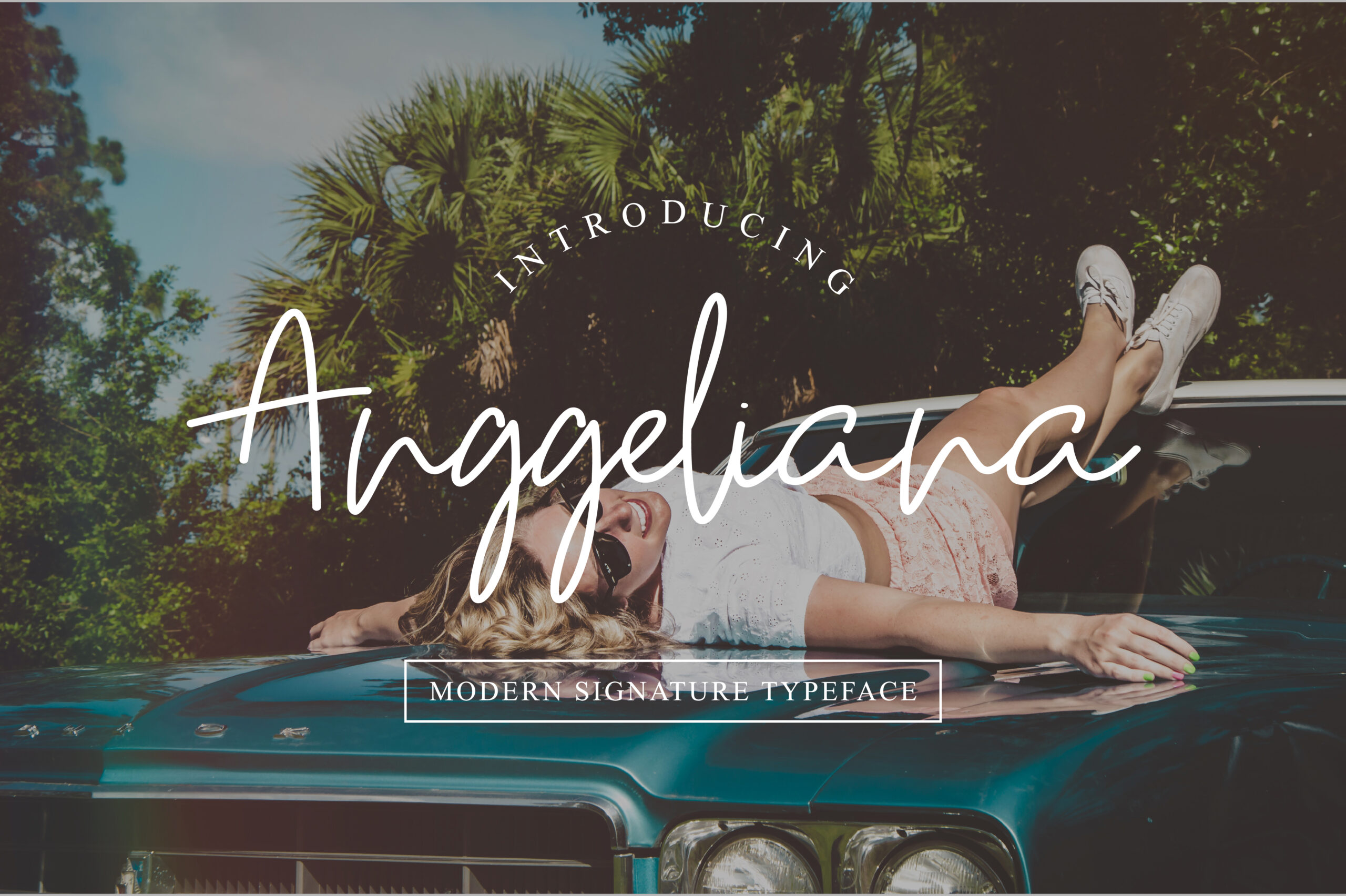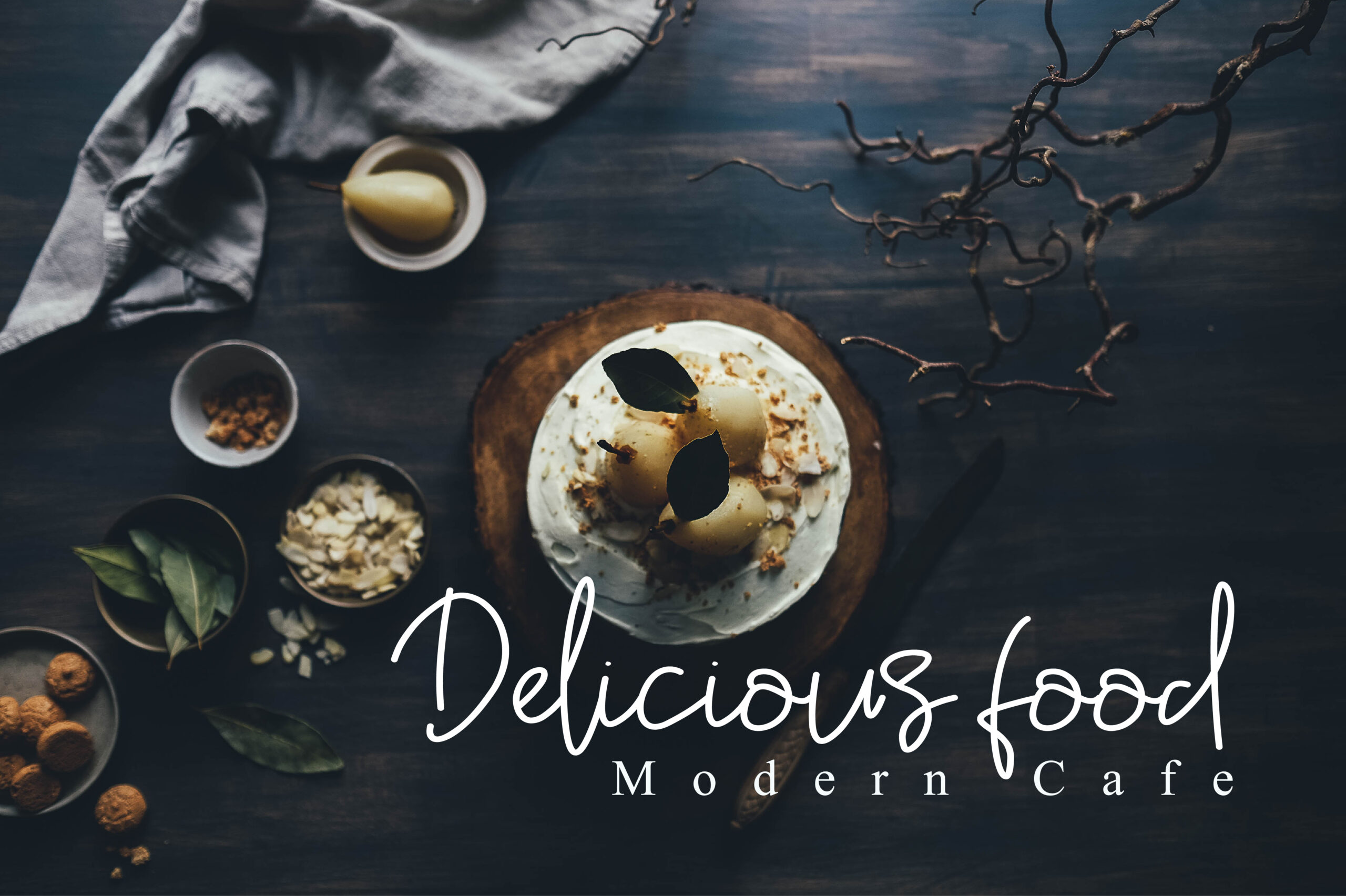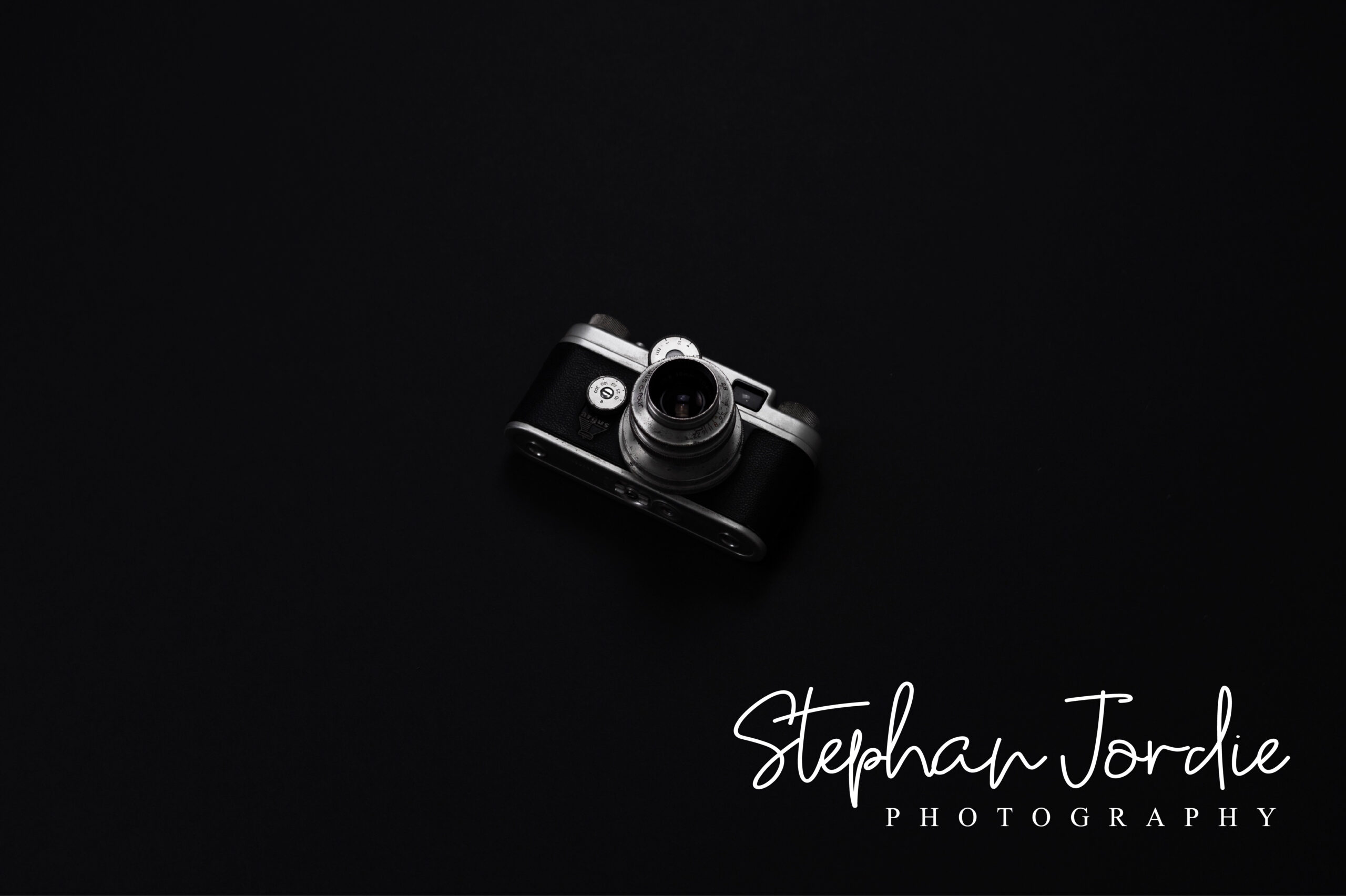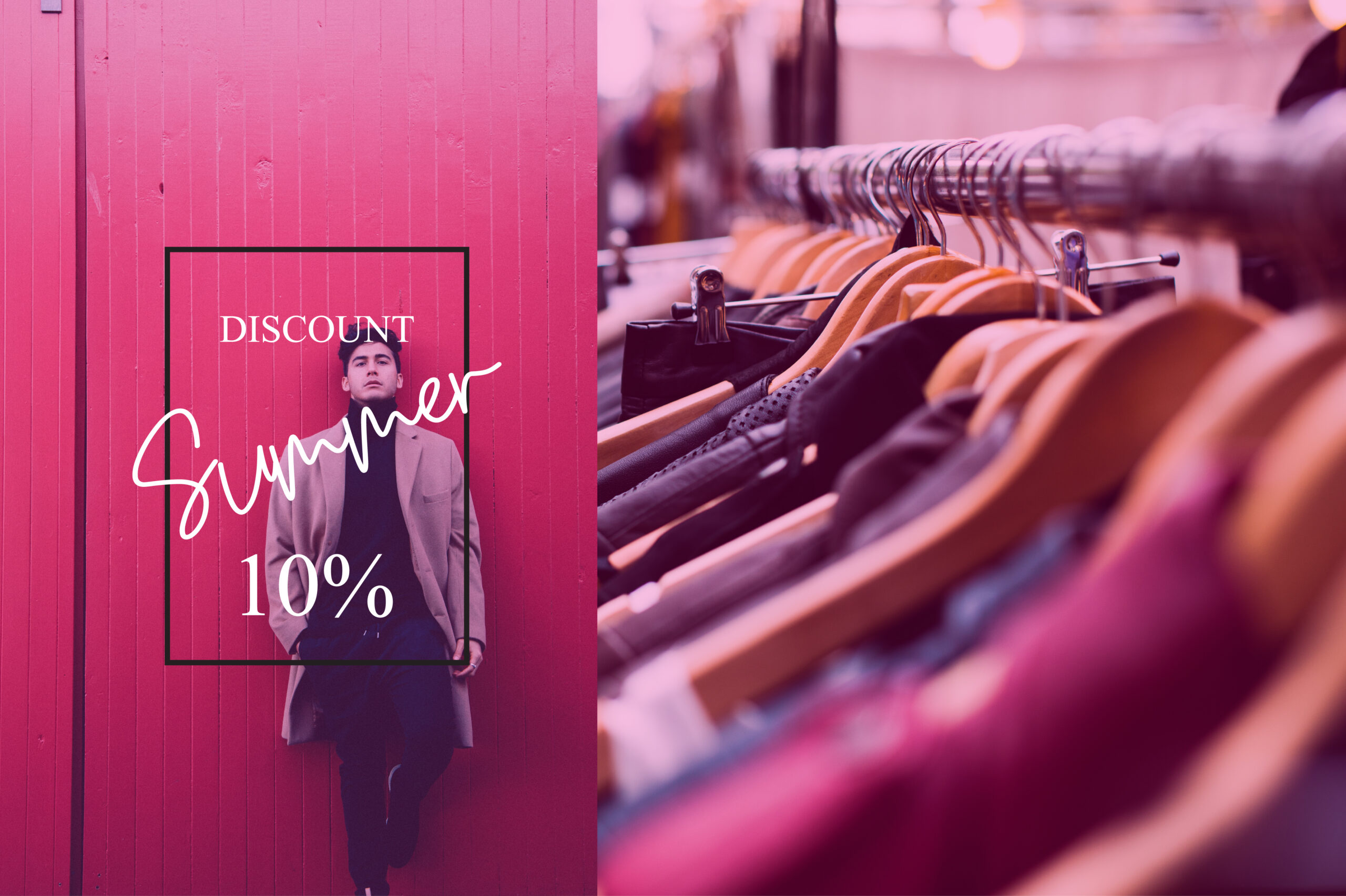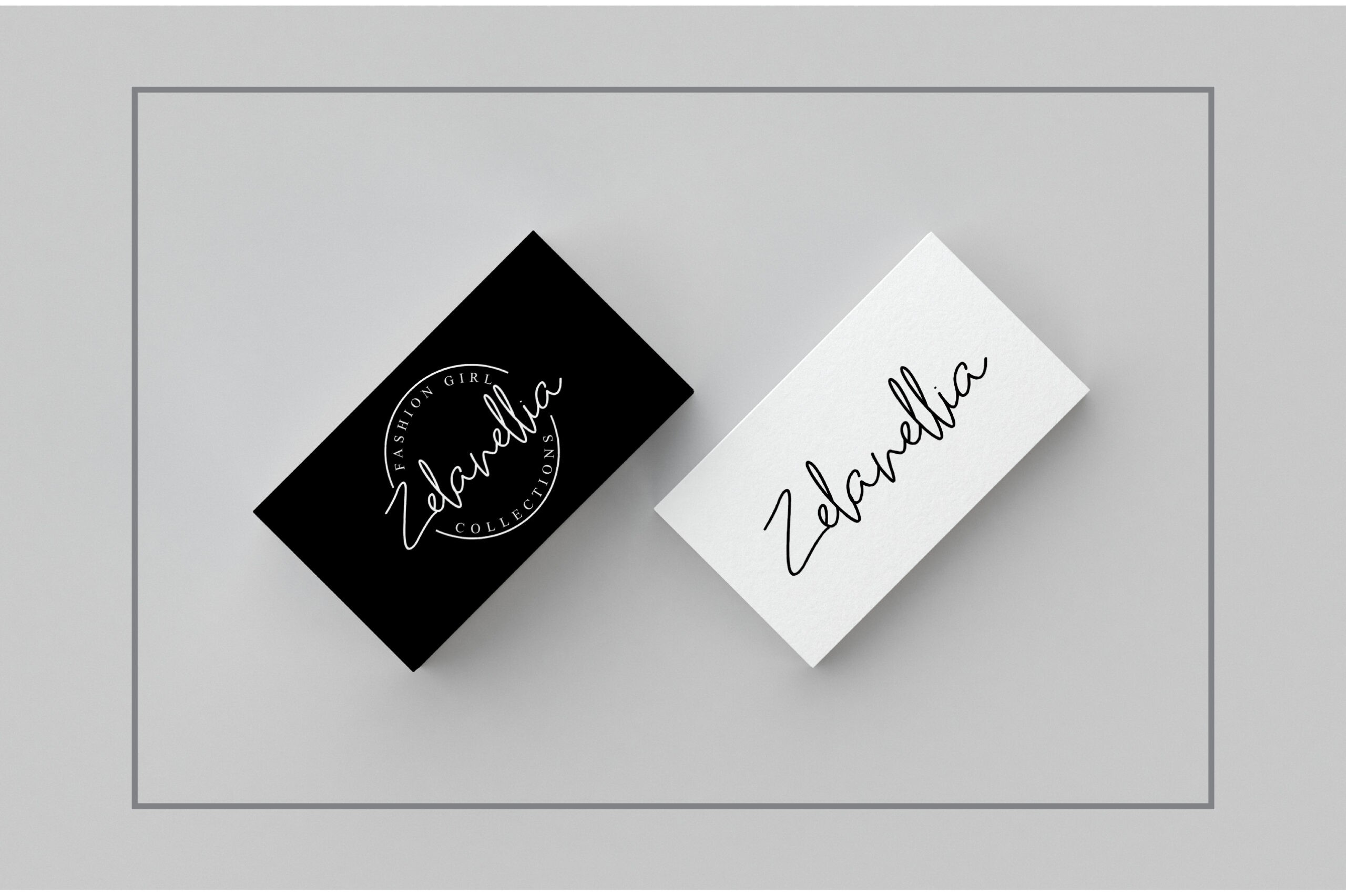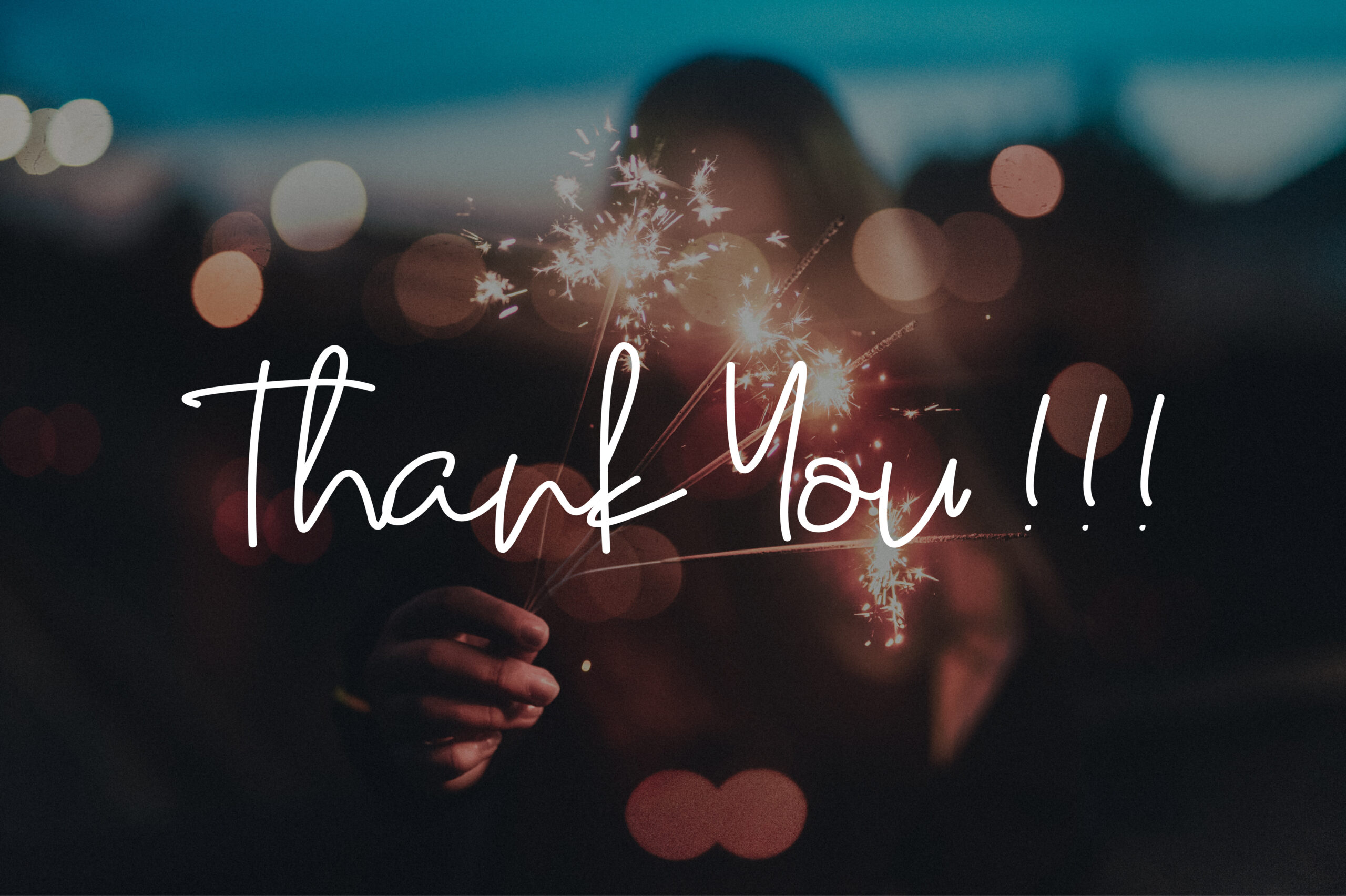
Anggeliana Font
About Anggeliana Font
Introducing the Anggeliana, a stylish handwritten with signature style. This beautiful script font offers a personal touch to your latest art project with an elegant, classy and modern look.